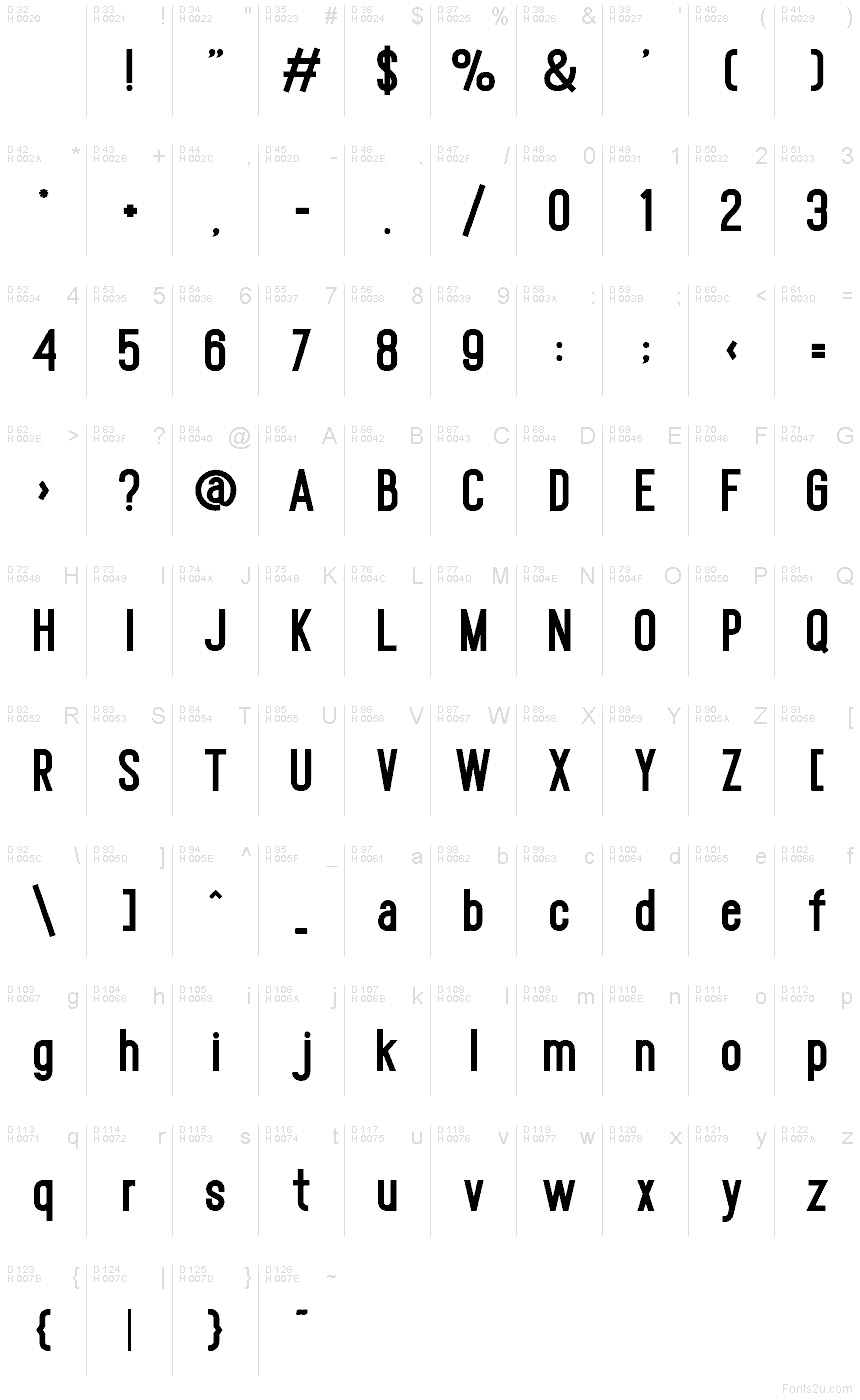
Rolever Bold
Rolever Bold font by PutraCetol Studio is a condensed sans serif that distills clean lines and a simple aesthetic in its letter shapes. Rolever’s utilitarian feel is accompanied by geometric shapes, modernist influences, and a retro-inspired style. Its thicker weight makes it suitable for both print and digital projects that involve legibility as well as emphasis.